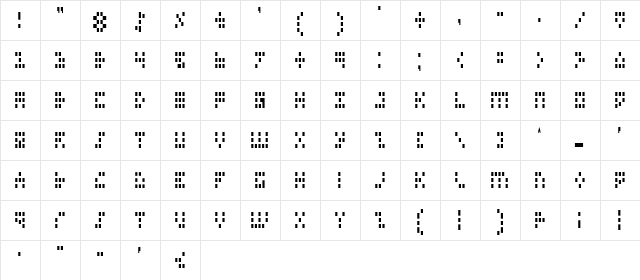
Iconian Condensed Condensed
Design Context for Iconian Condensed Typeface
Iconian Condensed is a composed and adaptable typeface that performs quietly and consistently across a wide range of design contexts. The condensed width makes it efficient for tight spaces without sacrificing legibility.